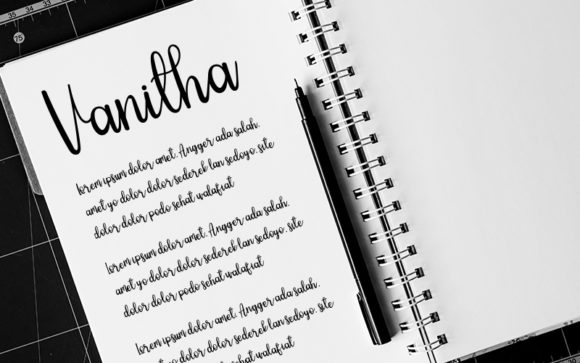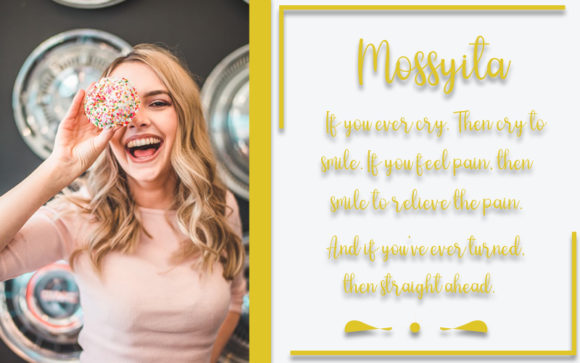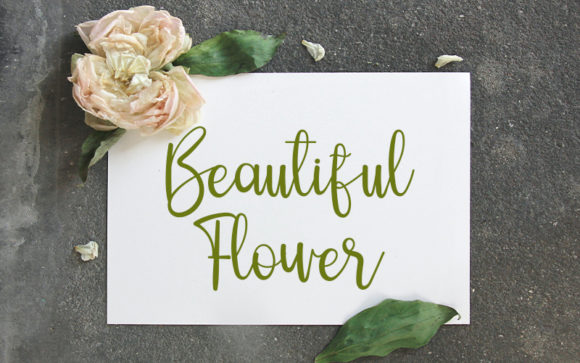
Introduction to Sahitna Font
Have you ever been stuck in a design rut, scrolling through endless font options, searching for that one perfect match to elevate your creative project? I know I have. It’s like trying to find the missing piece of a puzzle, and when you finally stumble upon it, everything falls into place. That’s exactly what happened when I discovered the Sahitna Font – a delightful script font that adds a touch of whimsy to any design.
What makes Sahitna Font truly special is its unique blend of playfulness and sophistication. This high-quality design resource is perfect for designers who want to add a personal touch to their projects without sacrificing professionalism. With a transparent background and free download available, Sahitna Font is an invaluable addition to any designer’s toolkit.
Key Features of Sahitna Font
- High-quality design resource ideal for creative projects requiring unique typography.
- Unique characteristics include its elegant and modern design, making it perfect for creative projects that require a touch of sophistication.
- Designed to be versatile, the Sahitna Font can be used for a variety of design applications, from branding and marketing materials to digital products and more.
Honest Review: Sahitna Font
I recently came across the Sahitna Font, a free download that I was excited to test for my next creative project. As a designer, I’m always on the lookout for high-quality design resources that can elevate my work.
Here are some aspects where the Sahitna Font shines:
- ✨ Beautiful and elegant typography: The font’s sleek lines and refined curves make it perfect for projects that require a touch of sophistication.
- ✨ Versatility: The font is suitable for a wide range of creative projects, from digital design to print materials.
- ⚠️ Limited language support: While the font is available in multiple languages, it’s not comprehensive, which may be a concern for projects that require extensive language support.
- ⚠️ Limited font sizes: The font is optimized for a specific range of font sizes, which may not be ideal for projects that require extreme scaling.
Overall, I’m impressed with the Sahitna Font’s potential as a design resource. While it may not be perfect, it’s definitely worth considering for your next creative project. With a little creativity and experimentation, you can unlock its full potential and create stunning designs.
Tips for Getting the Most Out of Sahitna Font
Experiment with different font sizes, colors, and styles to create unique designs. Use the Sahitna Font in conjunction with other design elements to create visually appealing graphics.
The Sahitna Font is ideal for creating logos, social media graphics, and marketing materials. Its high-quality design and transparent background make it perfect for use in various creative projects.